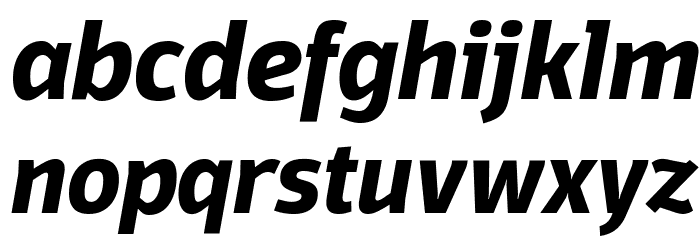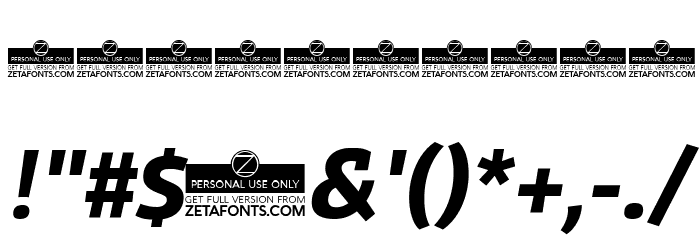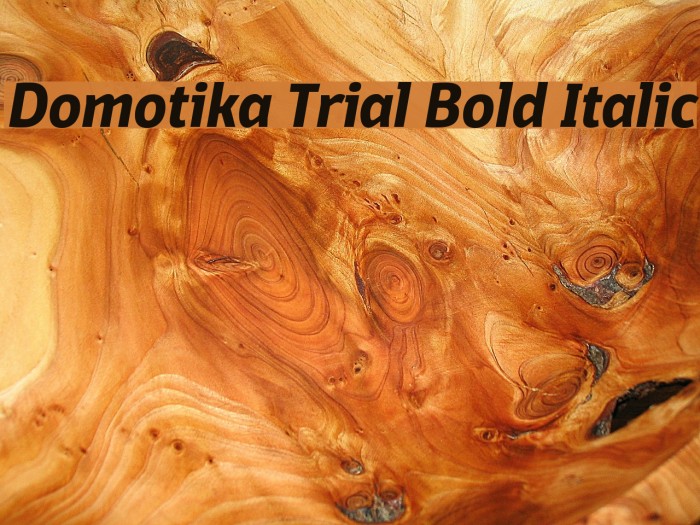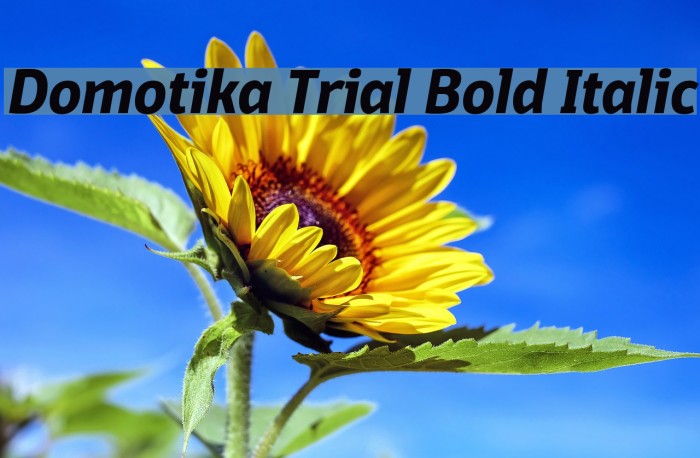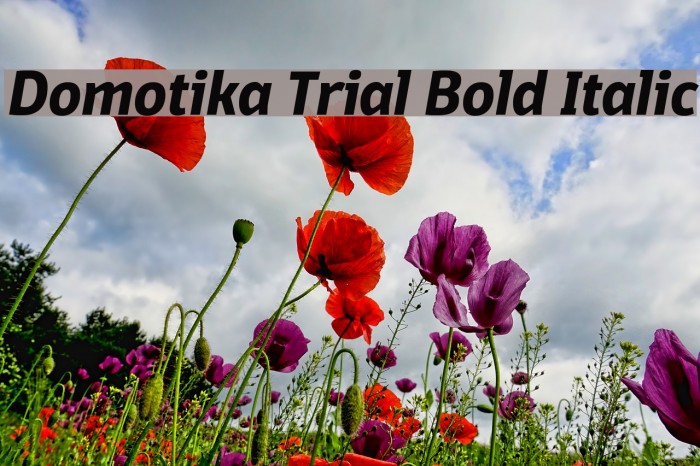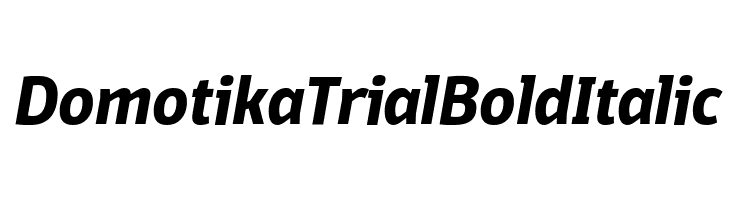
Domotika Trial Bold Italic Font
This font features a bold and italicized style, offering a dynamic and modern appearance. The letters are slightly slanted, adding a sense of motion and energy. The strokes are thick and consistent, providing a strong visual impact. The font maintains a clean and professional look, suitable for various design purposes. Its bold nature ensures readability, while the italicization adds a touch of elegance and sophistication. The characters are well-proportioned, with a balanced distribution of weight across each letterform. This font is versatile, making it ideal for both digital and print media.
- Proposed Projects: Ideal for branding, advertising, headlines, and digital media projects that require a strong and modern aesthetic.
- Use Case: Headlines, Logos, Branding